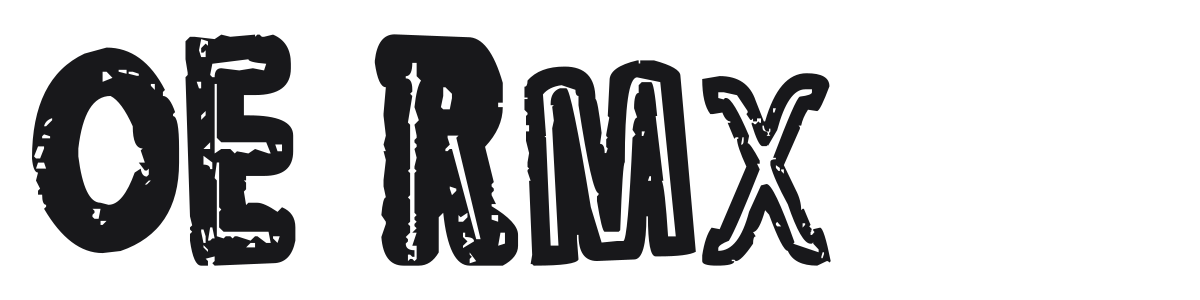
OE Rmx
OE RmxLicense is a bold distressed serif with heavy woodblock-print texturing that makes every character look stamped or worn. The chunky, condensed proportions and eroded ink feel give it a raw, handmade energy rooted in letterpress and folk printing traditions. It works well at large sizes where the texture reads clearly.